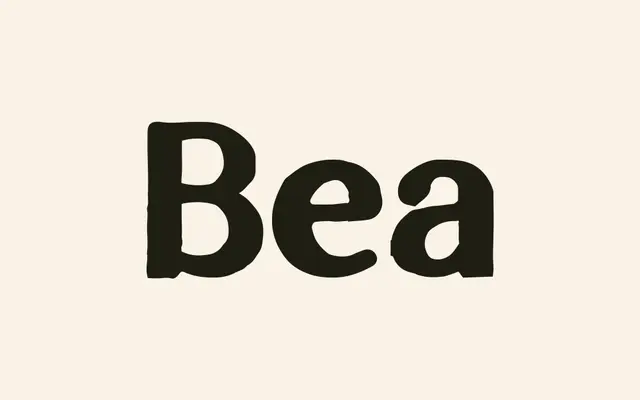
Bea specimen from Taylor Penton
A single-weight display serif with a linocut quality, designed as a personal tribute and suited to packaging, branding and invitation work.
Available in a single Regular weight, Bea is a display serif with soft edges and a handcrafted character that customers describe as having a linocut quality. The glyph set covers 151 characters including basic Latin and a limited range of accented forms. At £25 with a straightforward commercial licence covering logos, packaging and web use, it occupies a clear niche in the small-business branding market.
The foundry's description of 'strong personality, soft edges, and full of character' alongside customer references to a linocut quality suggest a display-oriented serif with textured, expressive letterforms rather than a text-setting workhorse.